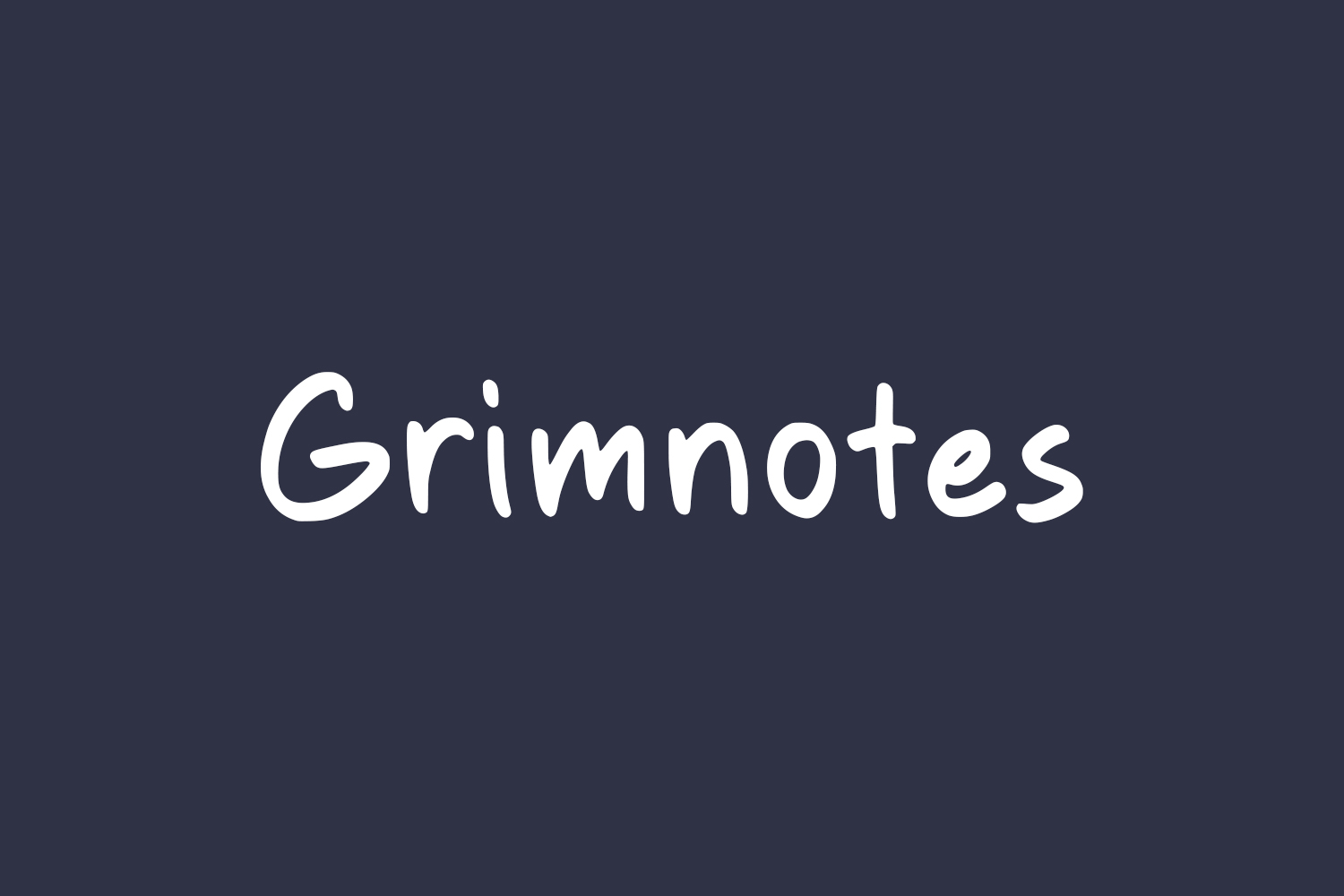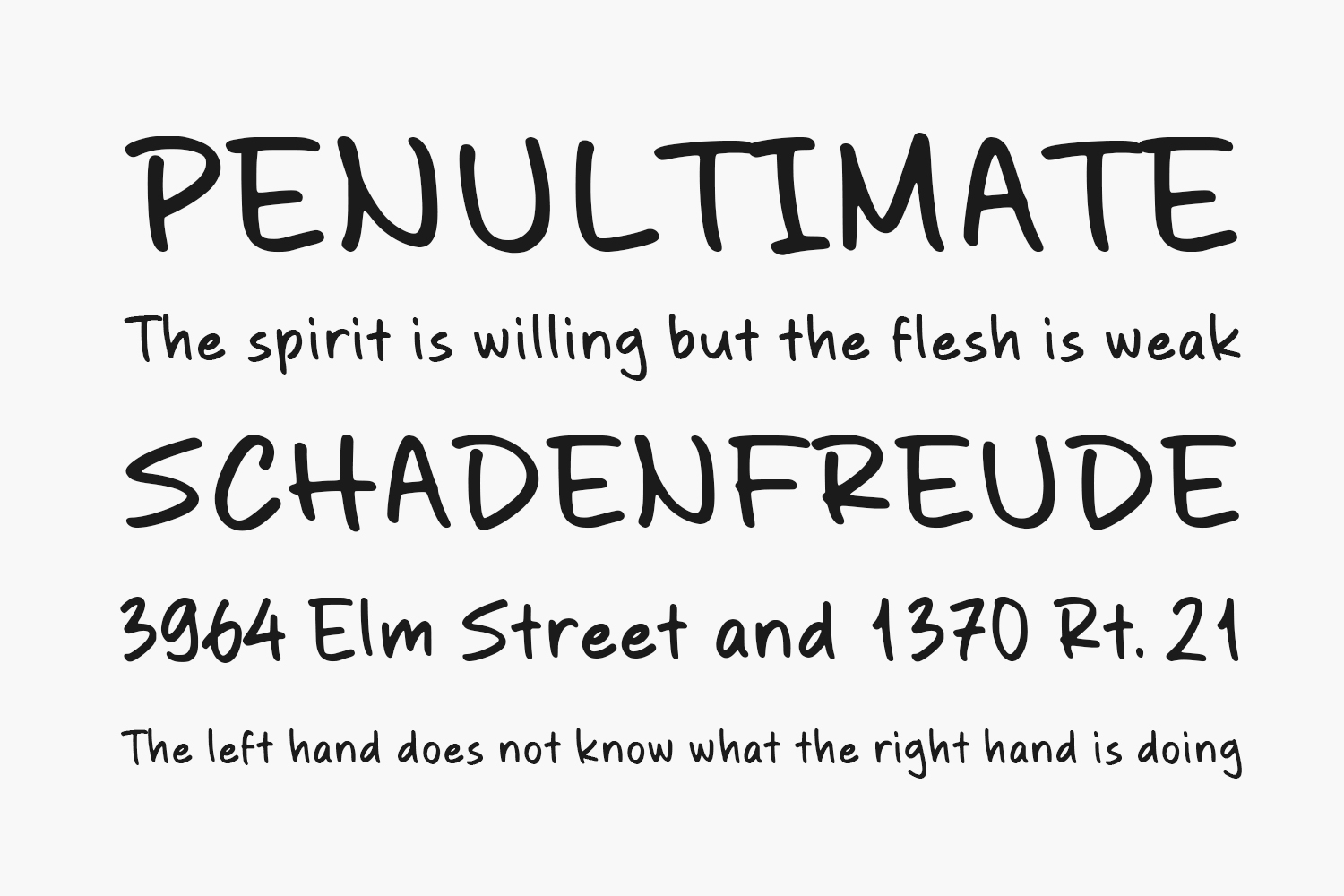
Grimnotes Free Font Family is a cool, down to earth, and readable handwritten font. Whether you use it for cartoon related designs, children’s games, or just any creation that requires a lovely touch, this font will be an amazing choice. GGrimnotes Free Font Family was designed by Allouse Studio and is free for personal use only. Please purchase the full version for commercial use.
Grimnotes Regular The quick brown fox jumps over the lazy dog
Grimnotes Alt The quick brown fox jumps over the lazy dog